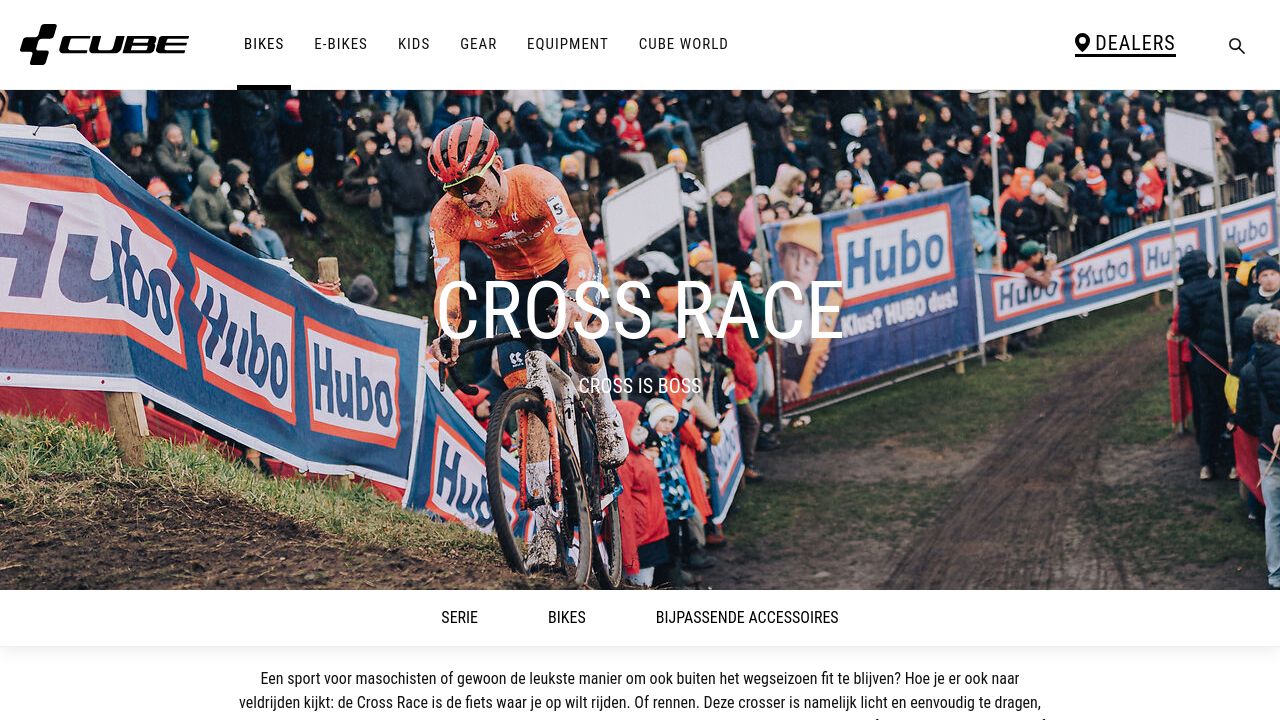
What fonts does Cube use?
Cube.eu uses Inter, Font Awesome 5 Brands, Font Awesome 5 Free, Roboto Condensed and KHInterferenceMono as its main typefaces. Tahoma and Arial are declared as fallbacks. 12 fonts detected, last checked Sep 21, 2026.
CUBE Bikes, known for their high-performance cyclocross and road bikes, utilizes a diverse range of fonts to convey their rugged yet dynamic identity. The primary fonts, such as Inter and Roboto Condensed, provide clarity and versatility, appealing to cycling enthusiasts. Custom fonts like swiper-icons and KHInterferenceMono add a unique touch, while Tahoma and various Font Awesome styles ensure consistency across their digital presence. This thoughtful typography choice reflects the brand's commitment to quality and performance in every ride.
Frequently asked questions about Cube.eu's fonts
What fonts does Cube.eu use?
Cube.eu uses Inter, Font Awesome 5 Brands, Font Awesome 5 Free, Roboto Condensed and KHInterferenceMono as its main typefaces. Tahoma and Arial are declared as fallbacks. 12 fonts detected, last checked Sep 21, 2026.
What primary fonts are used on cube.eu?
The primary fonts used on cube.eu include Inter, Roboto Condensed, Tahoma, and several custom fonts like swiper-icons and KHInterferenceMono.
How does Inter compare to other sans-serif fonts?
Inter is known for its readability and versatility, making it a popular choice for digital interfaces, often favored over traditional sans-serif options.
What styles and weights of Roboto Condensed are used on cube.eu?
cube.eu utilizes Roboto Condensed in weights of 300 and 400, providing a balanced look that enhances readability and visual hierarchy.
Are there fallback fonts for cube.eu?
Yes, cube.eu uses Arial as a fallback font, ensuring that text remains legible even if primary fonts are unavailable.